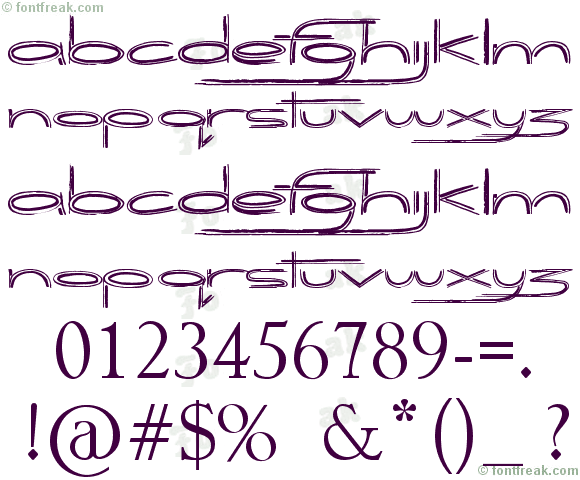
Biogalaxy
Biogalaxy, designed by Jonathan S. Harris, is a captivating display font that falls into the decorative category. This unique typeface features a playful and modern design, suitable for a variety of creative projects. Its distinctive strokes exhibit a medium weight with a slight contrast, adding a dynamic feel to the text. The letters are characterized by their rounded forms and whimsical flourishes, which give it a lively and energetic vibe. The spacing between the characters is thoughtfully balanced, ensuring readability while maintaining its artistic flair.
The Biogalaxy font is ideal for a range of applications. It shines in contexts such as tattoo designs, where its decorative elements can add a personal touch to body art. It can also enhance the visual appeal of event flyers, particularly for music festivals or art shows, where an eye-catching design is essential. The font works well in branding projects for small businesses, especially those targeting a younger demographic or those in creative industries. Additionally, it can be utilized in social media graphics and content creation, making it a versatile choice for content creators looking to stand out.
The target audience for the Biogalaxy font includes graphic designers, small business owners, and content creators who are in search of a unique typeface that can elevate their visual communications. Its freeware license makes it accessible for anyone looking to incorporate a distinctive font into their projects without financial barriers.
What sets the Biogalaxy font apart is its ability to blend artistry with functionality. Its playful nature and modern aesthetic make it a fantastic choice for projects that require a touch of creativity and individuality. For those interested in adding this font to their collection, the Biogalaxy font free download offers an opportunity to explore its potential in various design endeavors.